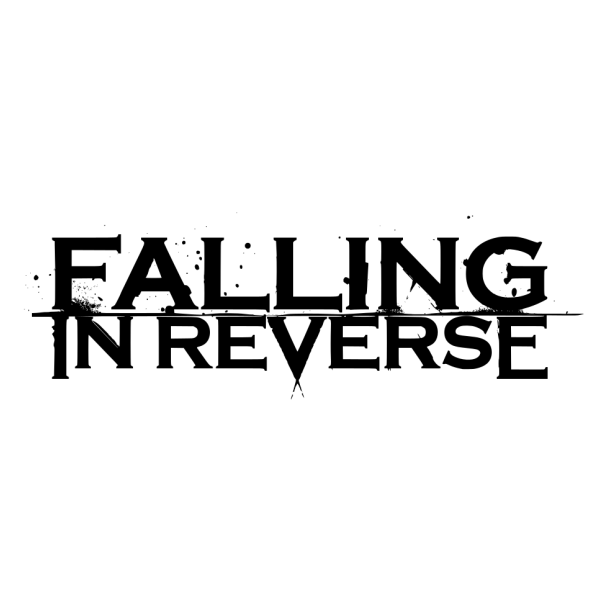
Falling in Reverse Font
BandFalling in Reverse is an American rock band based in Las Vegas, Nevada, formed by lead vocalist Ronnie Radke while he was in prison.
The above logo was likely based on Copperplate Gothic, an inscribed serif originally designed by Frederic W. Goudy in the 1900s, and appears on the cover of their debut album, "The Drug in Me Is You." You can view more details about it here.